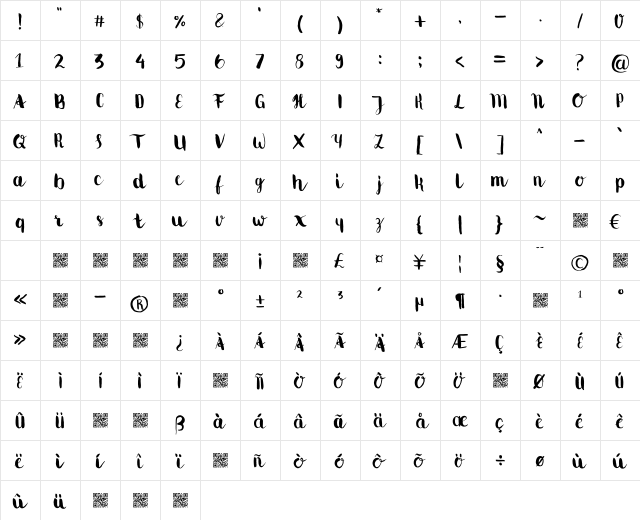
MovusBrushPen Regular
Design Context for MovusBrushPen Typeface
MovusBrushPen flows with the natural rhythm of handwritten lettering, making it ideal for designs that call for warmth and personal expression.
Font Pairing: Combine MovusBrushPen with a simple geometric sans for maximum contrast — the tension between flowing curves and clean structure is a classic typographic pairing.
Pro Tip: Use MovusBrushPen for short runs of text — names, titles, or taglines. Extended body copy in script faces tires the eye quickly.